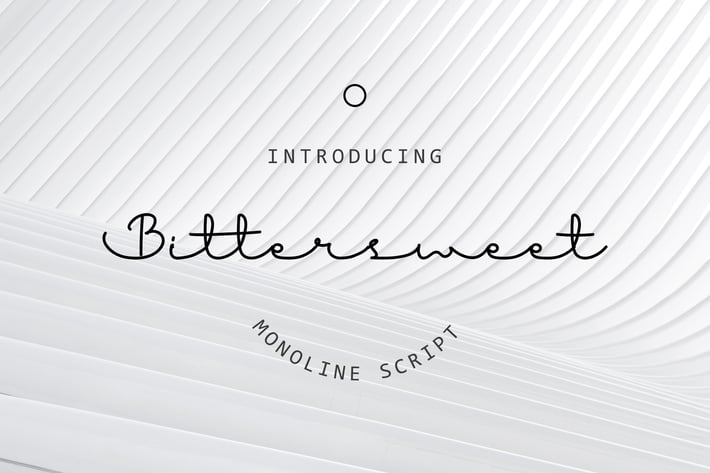
Bitter Sweet Font
Bitter Sweet Font that contain lowercase, uppercase, symbol, and also support multi language. There’s a lot ligatures in this font. Bitter Sweet Font also comes with ligatures, stylistic alternates and many more. this font suitable for fashion, branding, catalog and other design what you want.